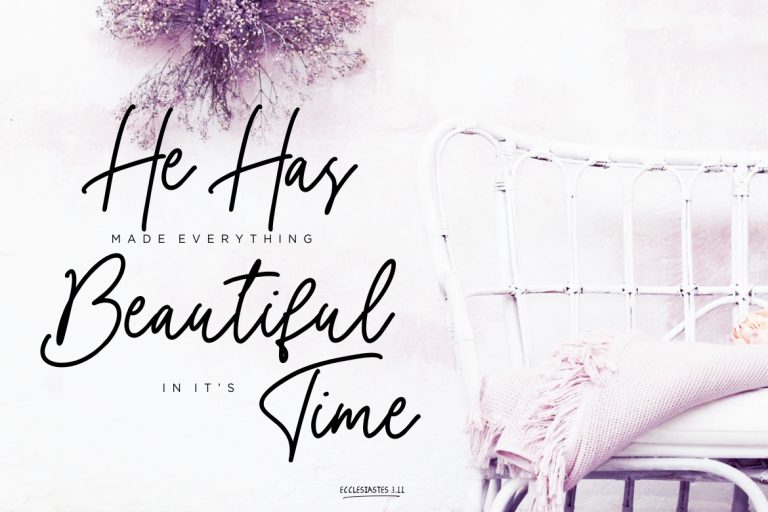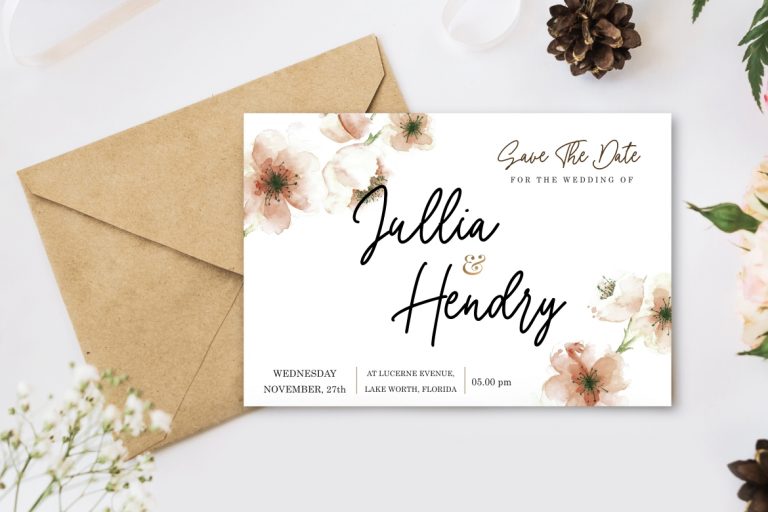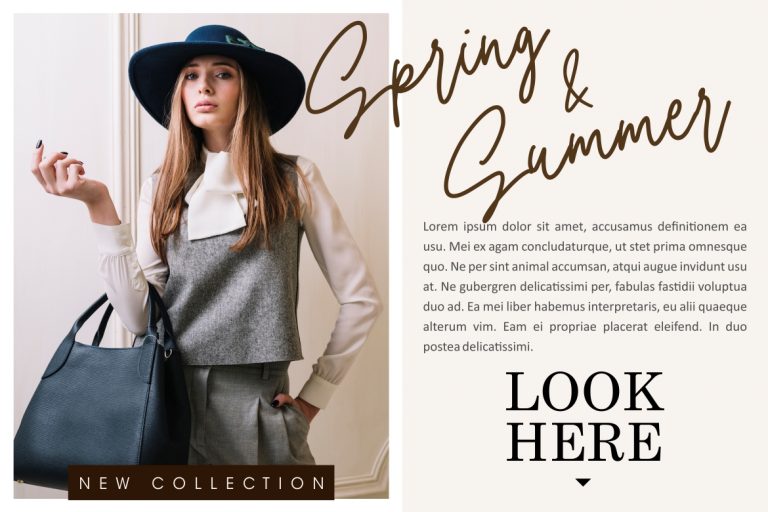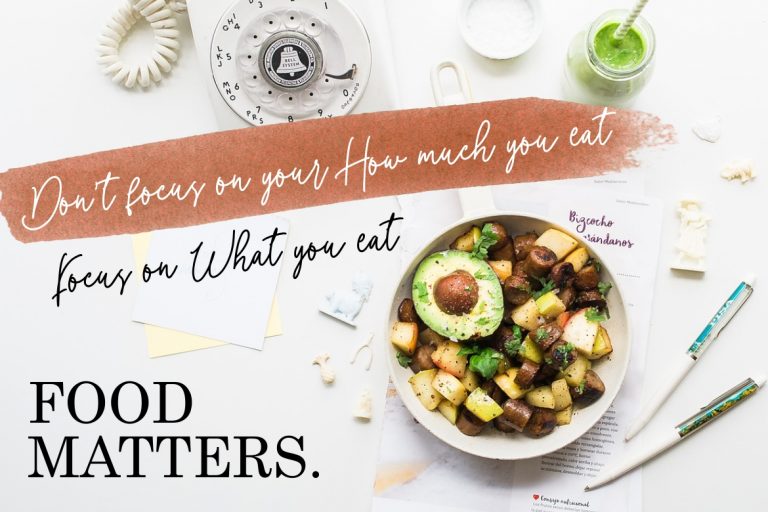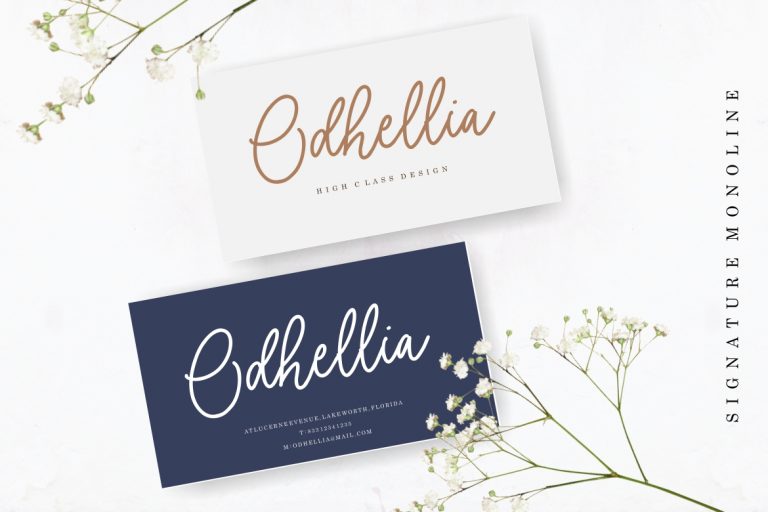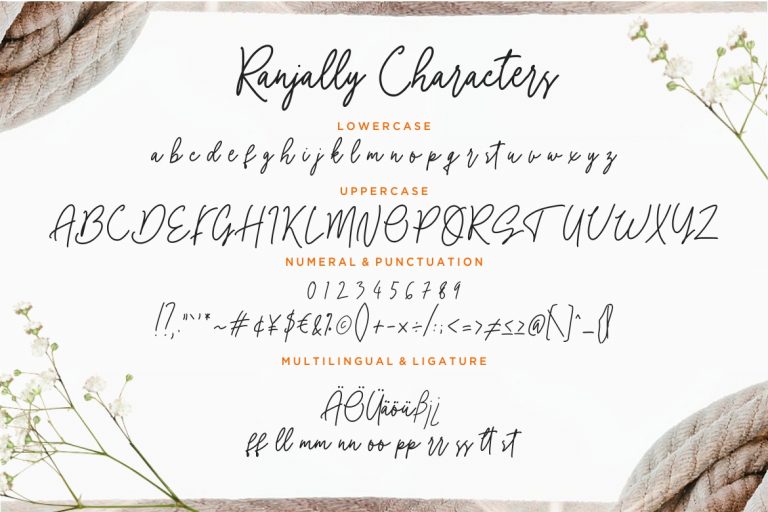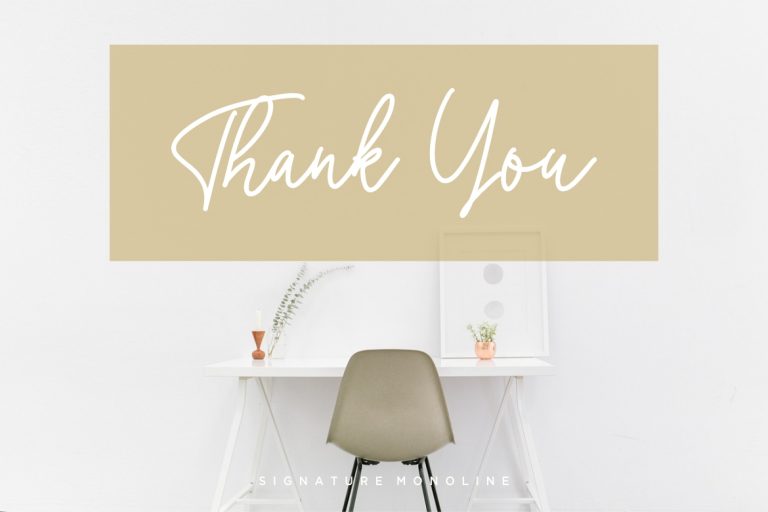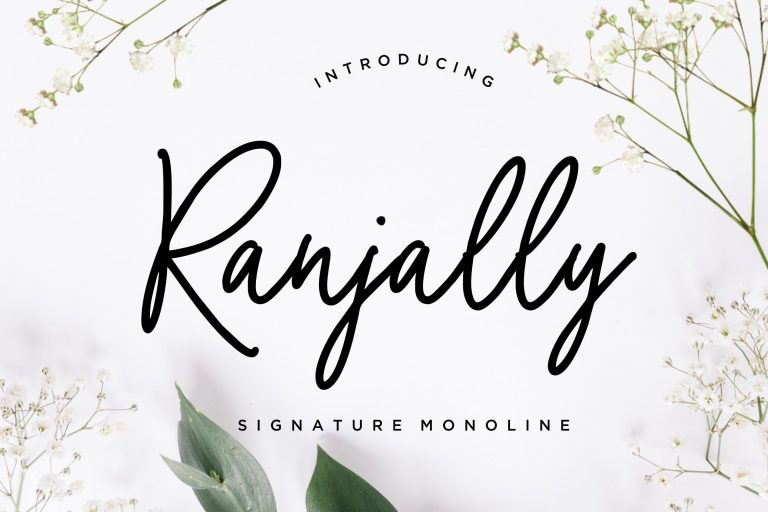
Ranjally Monoline is a handwritten signature font with monoline style looks elegant, luxury and classy.
Ranjally Monoline is perfect for branding projects, logo, wedding designs, social media posts, advertisements, product packaging, product designs, label, photography, watermark, invitation, stationery and any projects that need handwriting taste.
• Fonts include multilingual support for; ä ö ü Ä Ö Ü ß ¿ ¡
Ranjally Monoline Signature